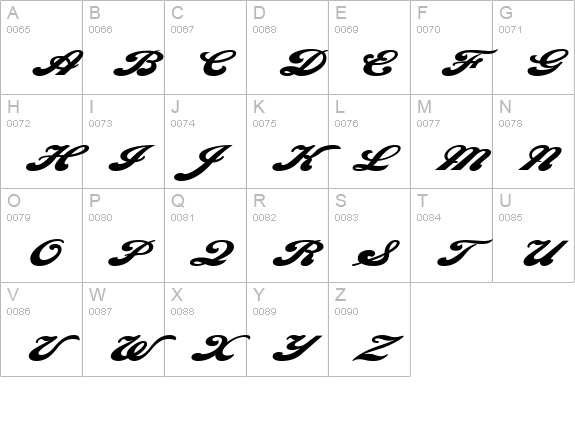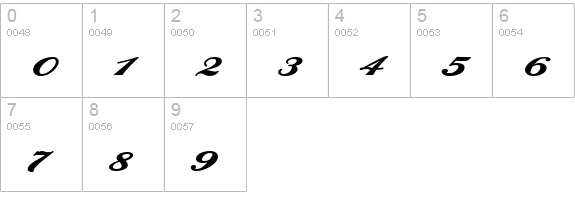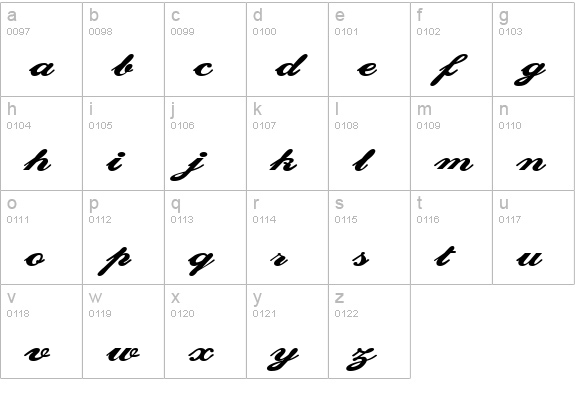
Sweden Extended Bold is a strong, high-contrast, extended-width variant in the Sweden typeface family \xE2\x80\x94 well suited to headlines, attention-grabbing titles, and strong calls-to-action.
Sweden Extended Bold is a modern and stylish typeface that exudes confidence and sophistication. With its clean lines and bold strokes, this font is perfect for making a strong statement in headlines, posters, and branding materials. The extended width of the characters adds a unique touch to any design, making it stand out from the crowd. And the best part? Sweden Extended Bold is available for free download at FontsMarket.com. So you can easily add this versatile font to your collection without breaking the bank. Whether you're working on a professional project or a personal design, Sweden Extended Bold is sure to elevate your work with its bold and impactful presence. Download it now and let your creativity shine with this stunning typeface.